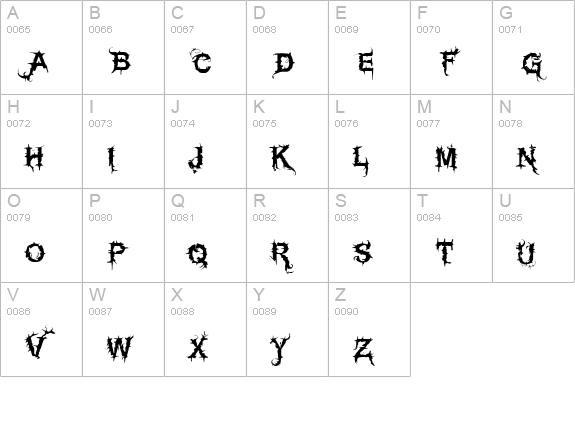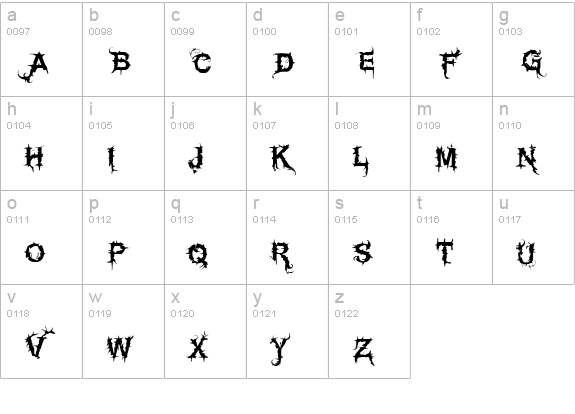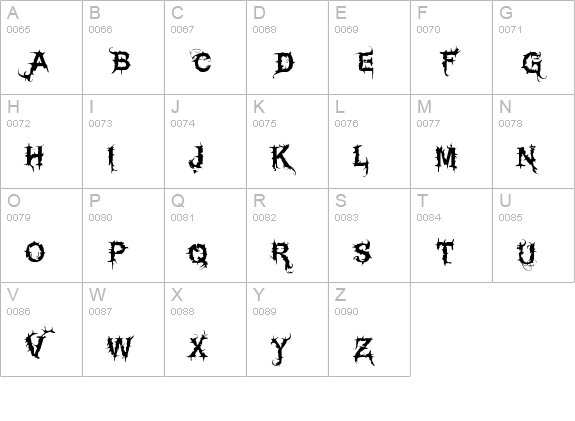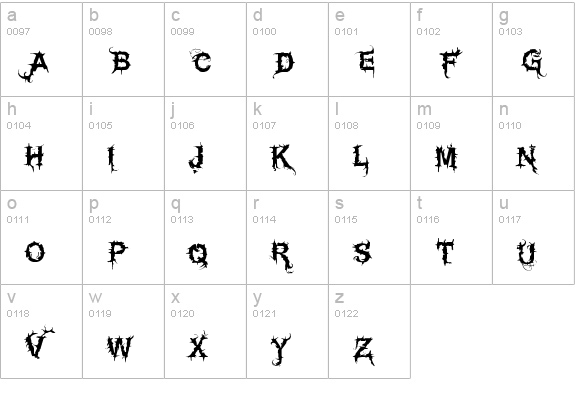
Vtks espinhuda Font Details
Vtks Espinhuda is a stunning display font that effortlessly combines elegance with a touch of edginess. Its unique and intricate design captivates the eye, making it perfect for eye-catching headlines, posters, and branding projects. With its sharp serifs and delicate curves, Vtks Espinhuda stands out from the crowd, exuding a sense of sophistication and creativity. Every letter is carefully crafted with attention to detail, resulting in a visually striking typeface that demands attention. The versatility of Vtks Espinhuda allows it to be used in a variety of design projects, from fashion editorials to music album covers. Its distinct personality adds a touch of individuality to any composition, making your work truly stand out. One of the best aspects of Vtks Espinhuda is that it is free! Yes, you read that right. This exceptional font is freely available to download at FontsMarket.com. Now you can enhance your design projects without having to worry about any additional costs. So why wait? Give your designs a unique and captivating touch with Vtks Espinhuda. Download this remarkable font today from FontsMarket.com and let your creativity soar.